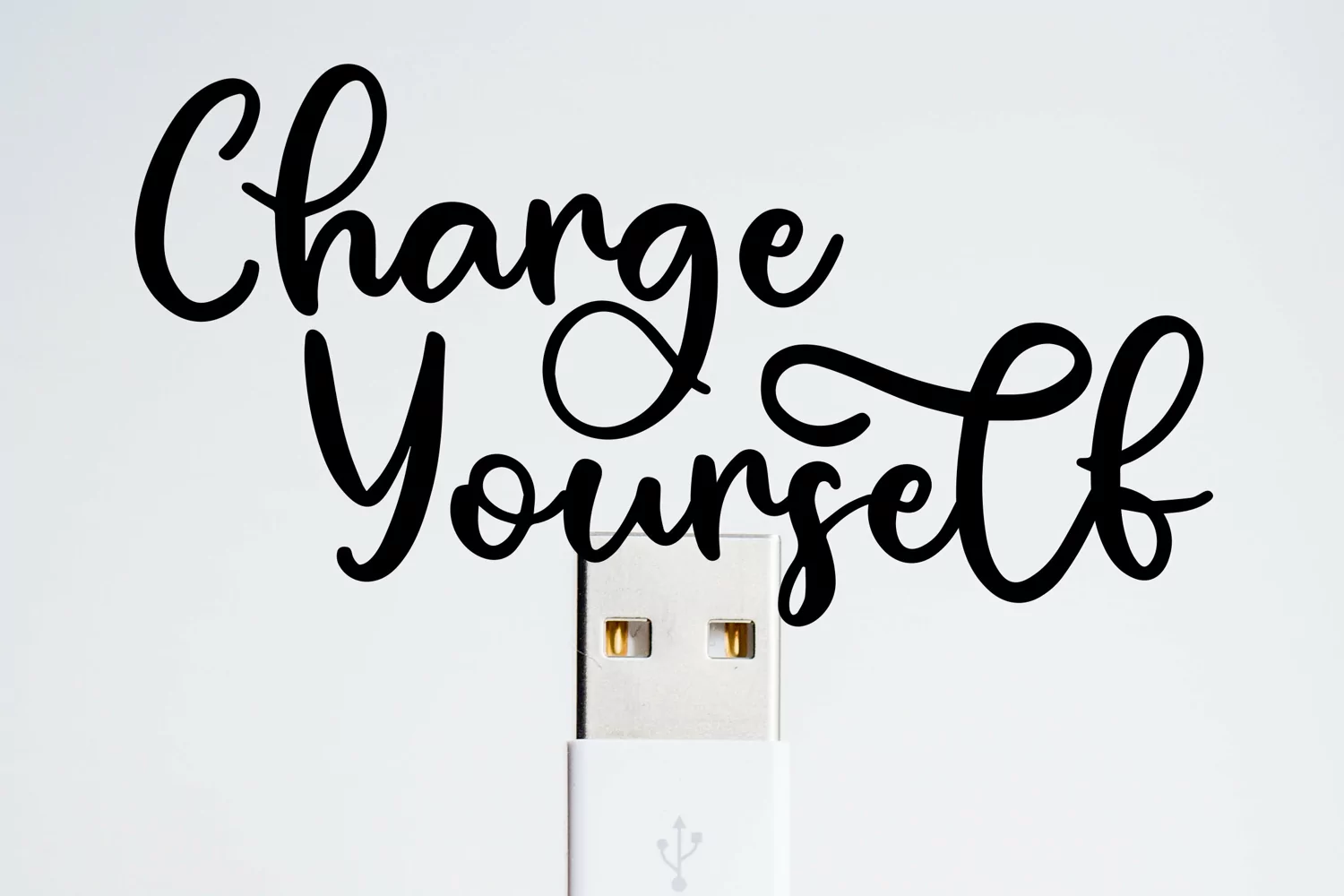
Ginger Cookies - Delicious Font that contain lowercase, uppercase, symbol, and also support multi language. There’s a lot ligatures in this font. This Font also comes with ligatures, alternates and many more. this font suitable for fashion, branding, catalog and other design what you want.
Ginger Cookies